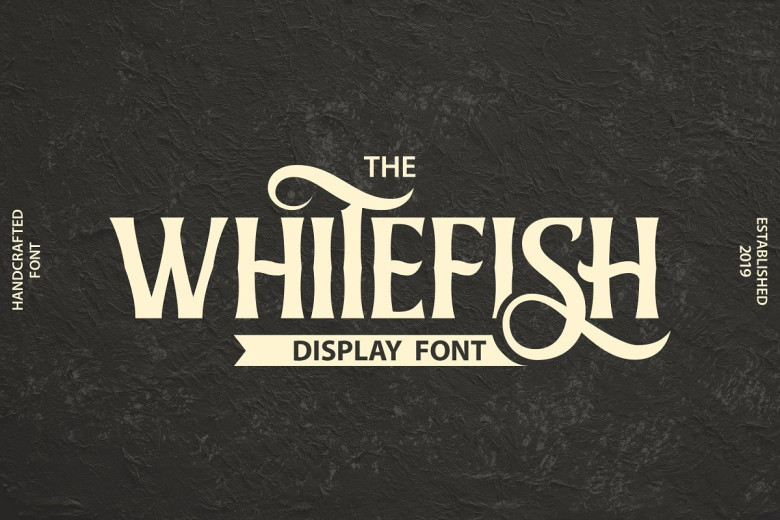
Whitefish Serif Display Font
Introducing Whitefish Font is serif display roman style built for branding, logos, and headlines. Its dramatic curves and contrast are perfect for fashion, tech, art, food, and packaging. Seven weights and italics provide a wide range of elegant applications.